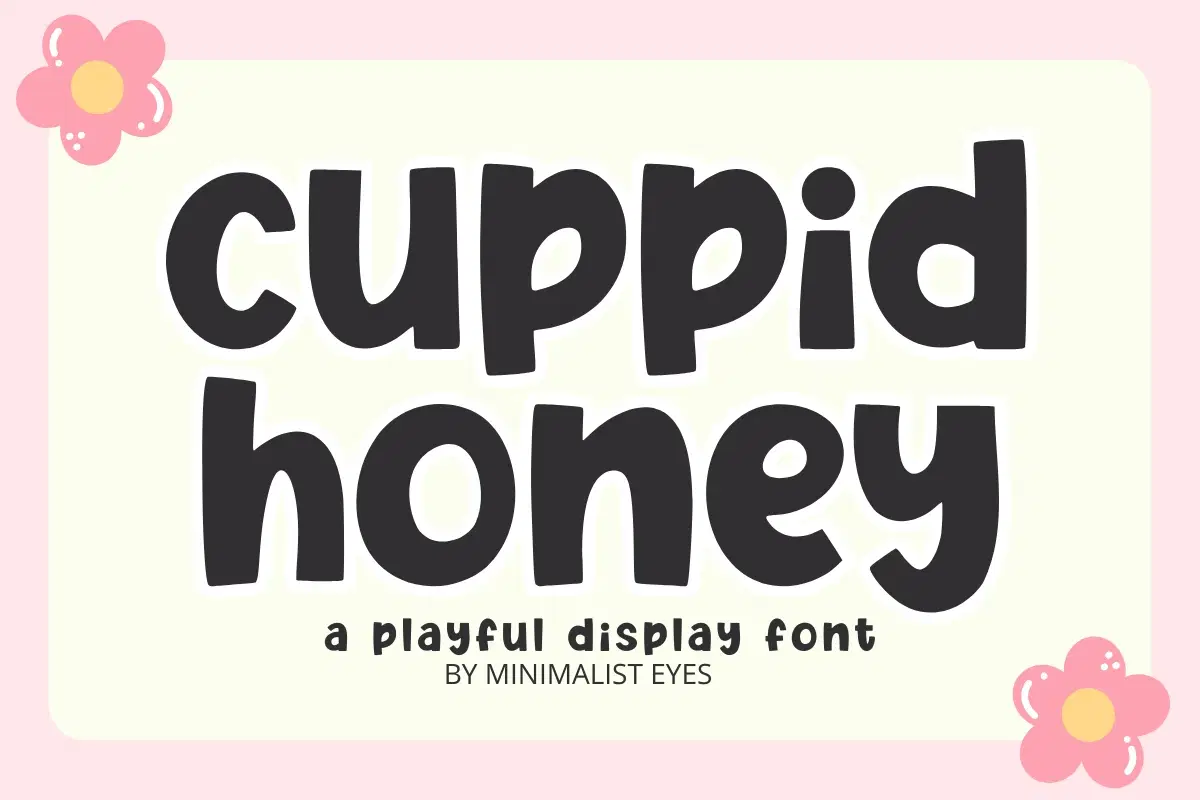
Bring a touch of joy and sweetness to your designs with Cuppid Honey! This playful display font features bold, rounded strokes and a friendly personality that’s perfect for capturing attention. Designed with a hand-lettered feel, it’s the ideal choice for projects that need a fun and approachable vibe.
Whether you are creating eye-catching social media posts, adorable children's book covers, personalized greeting cards, or trendy merchandise, Cuppid Honey delivers a charming and modern look. Its thick, soft edges make it incredibly readable and versatile for both digital and print media.